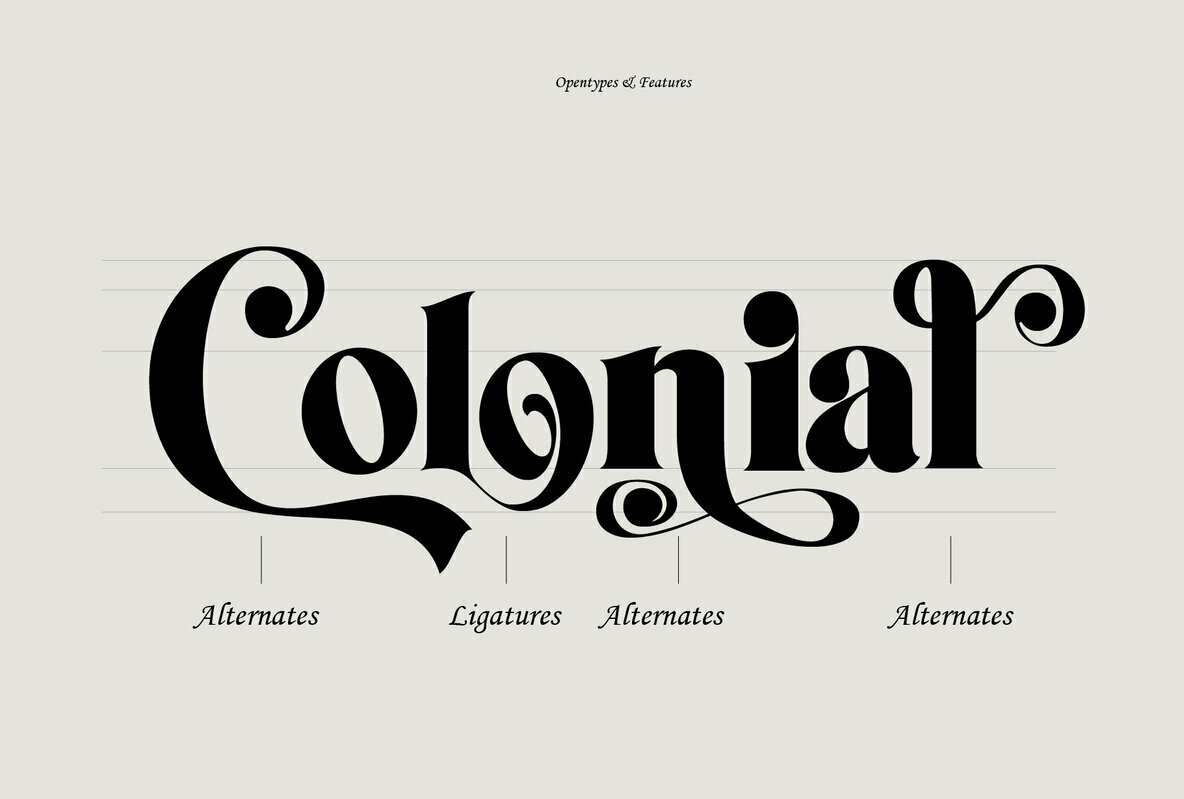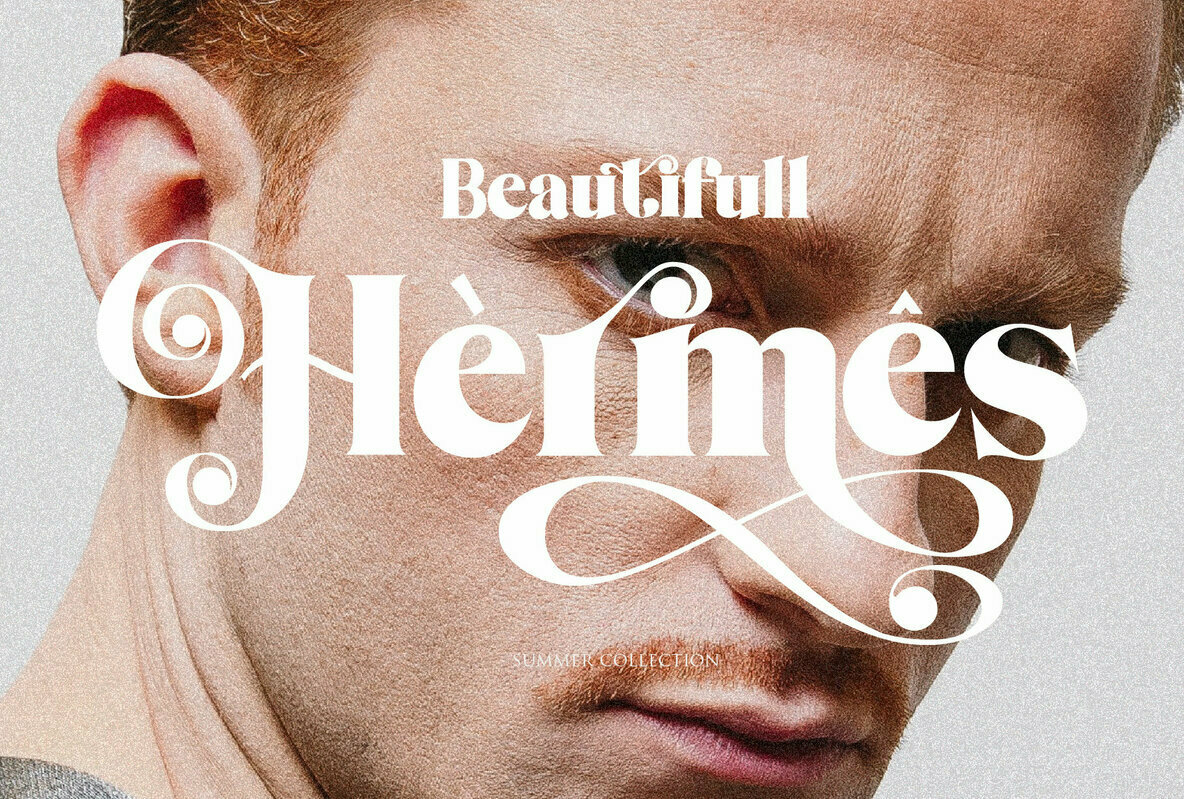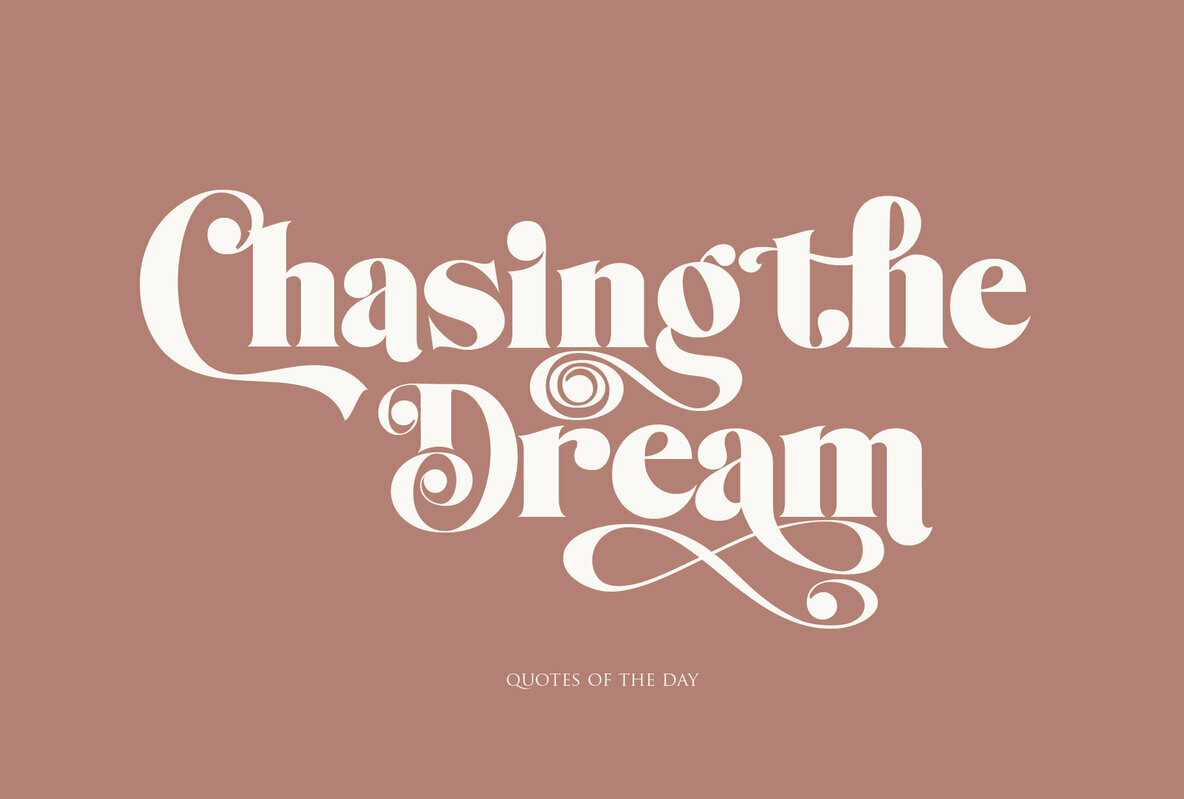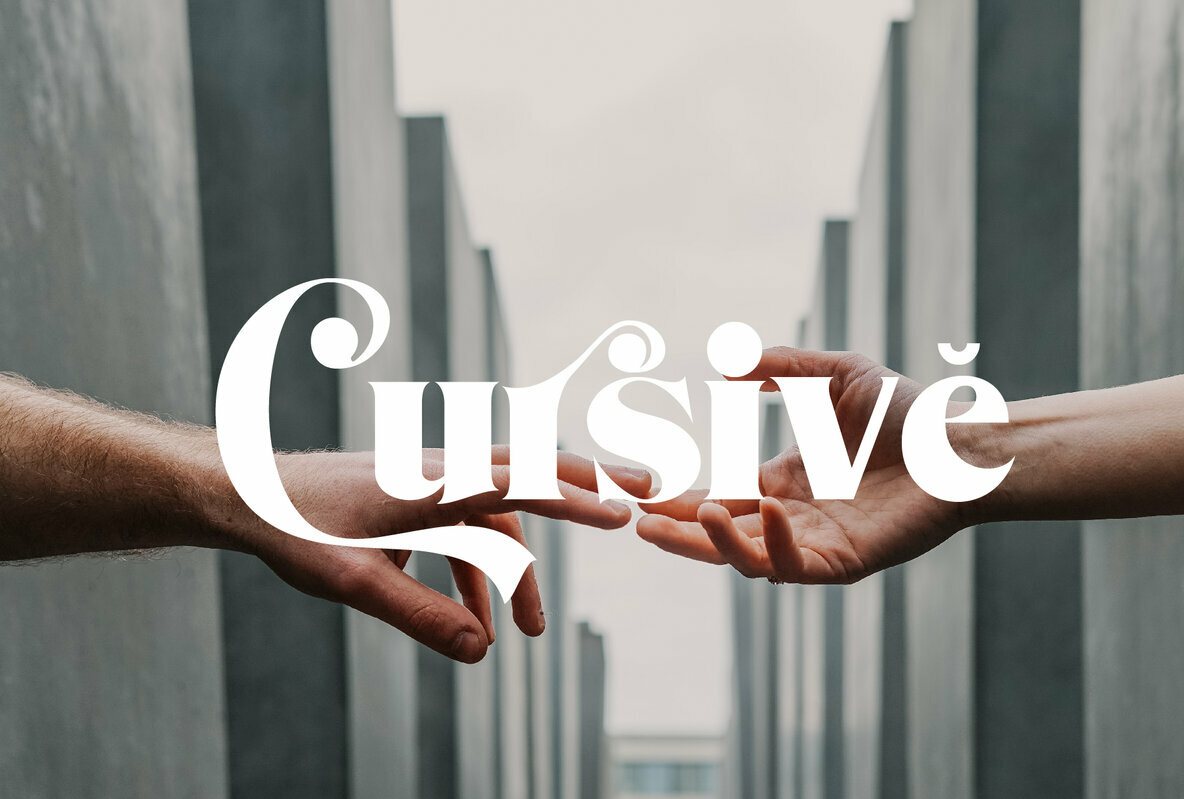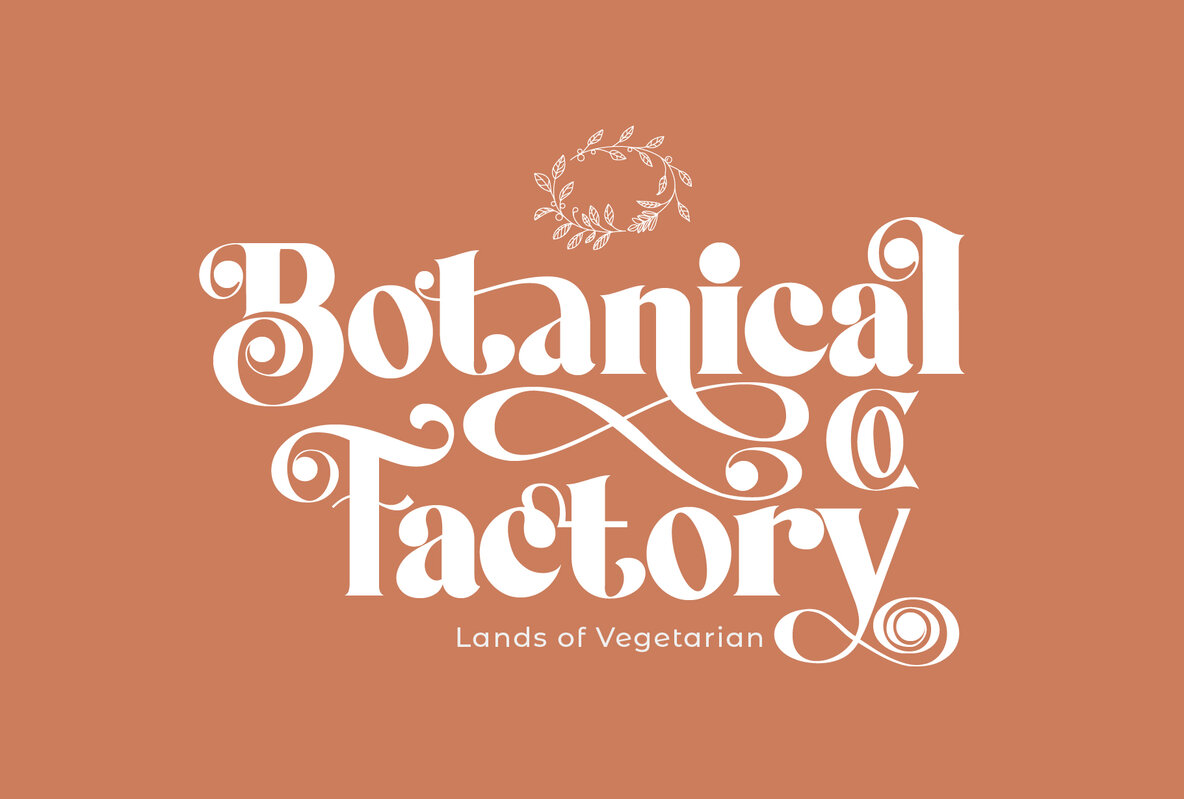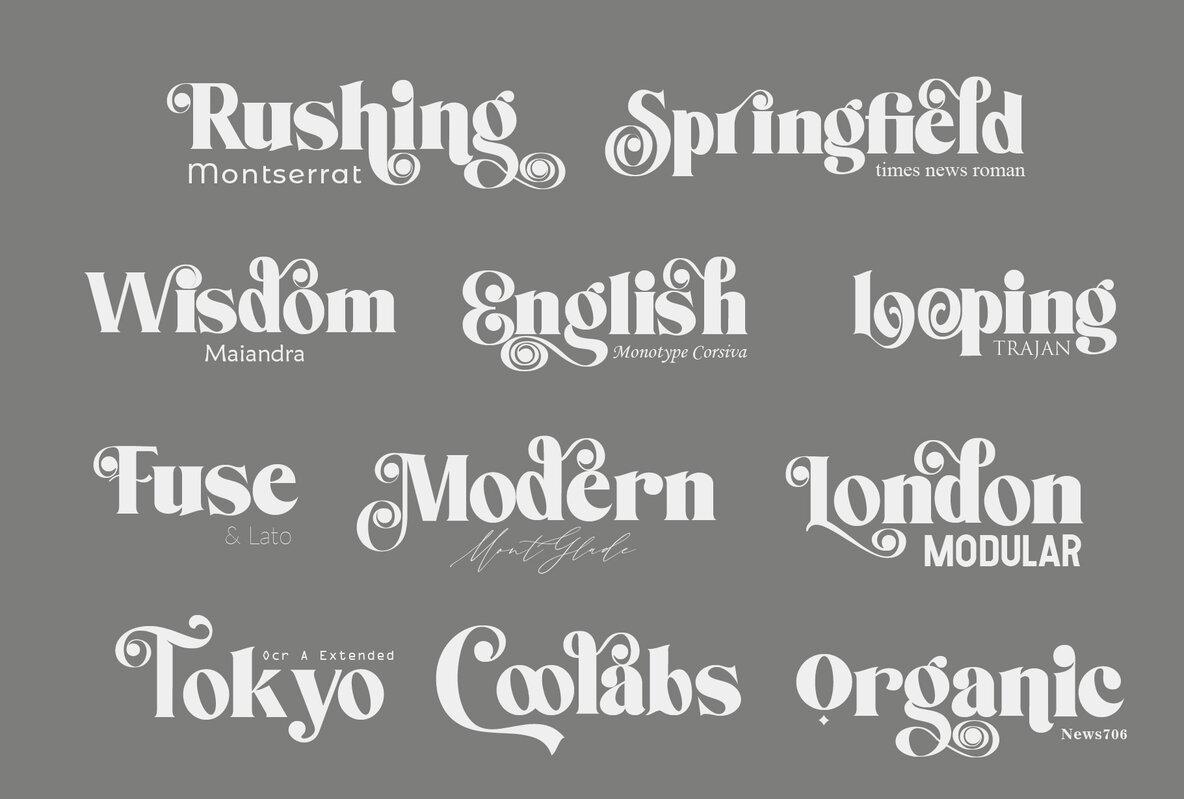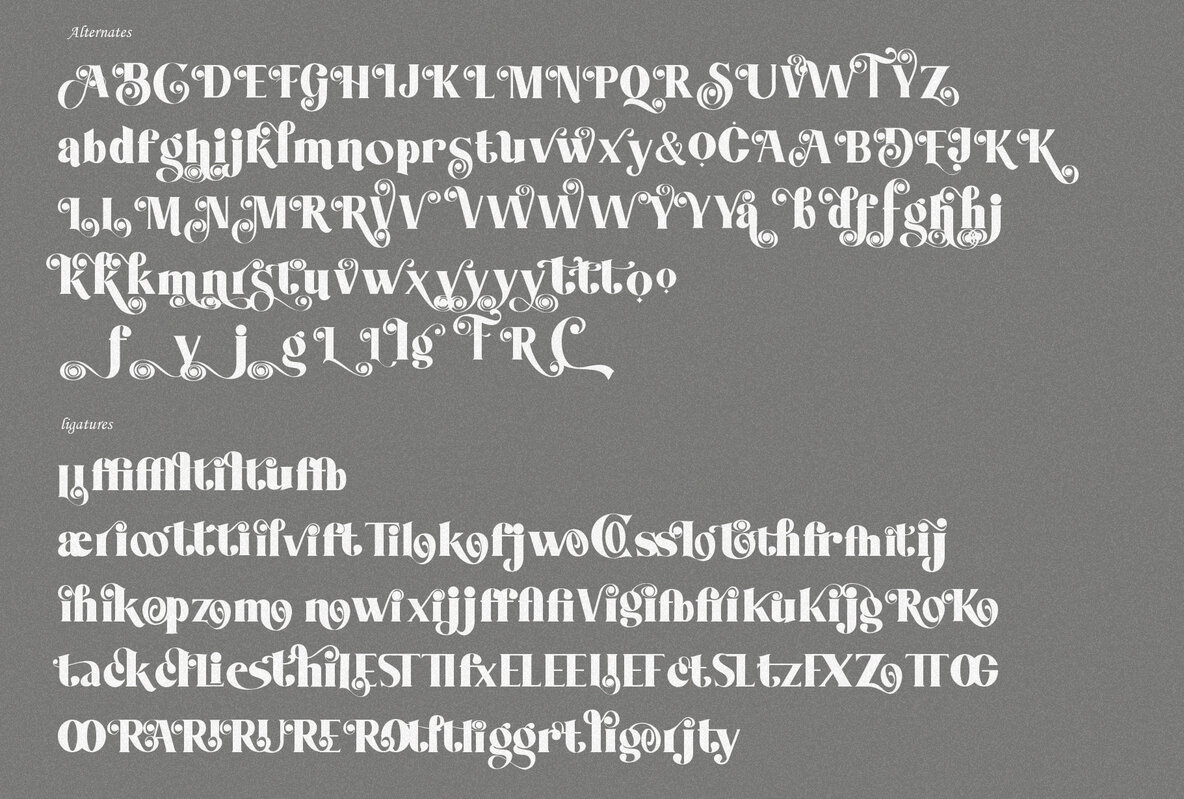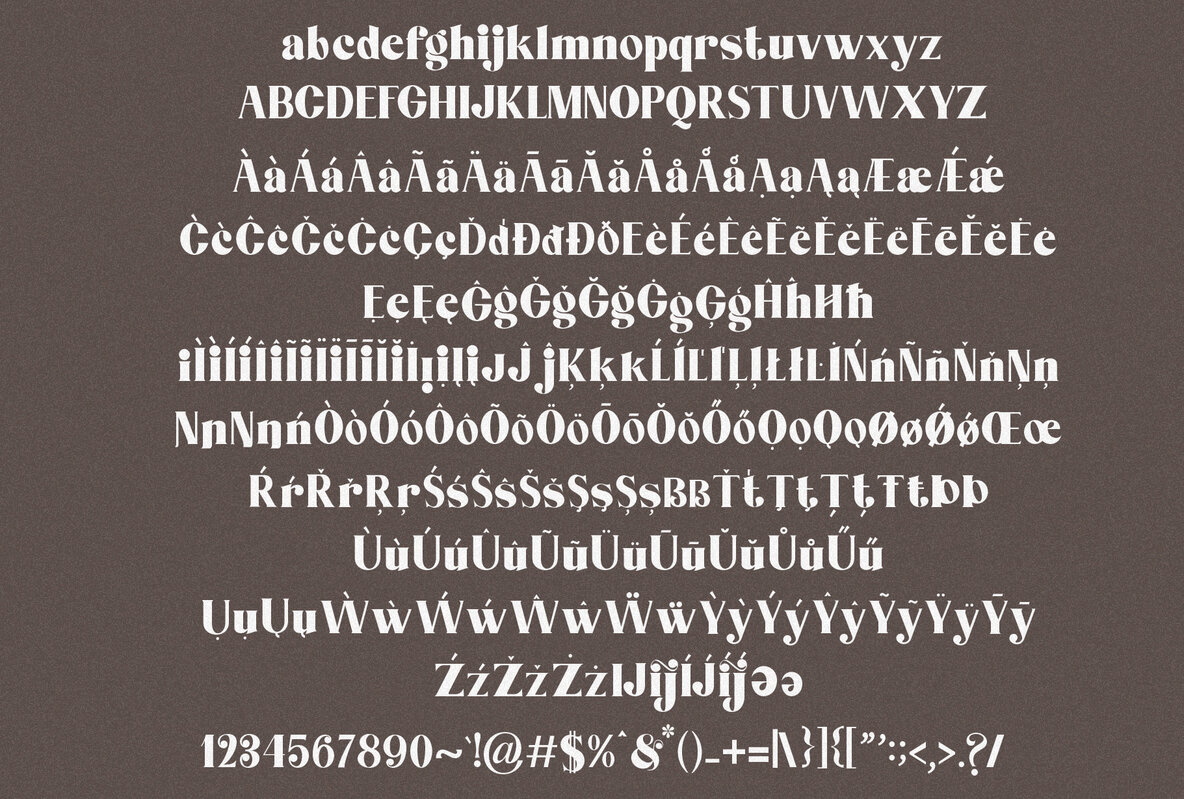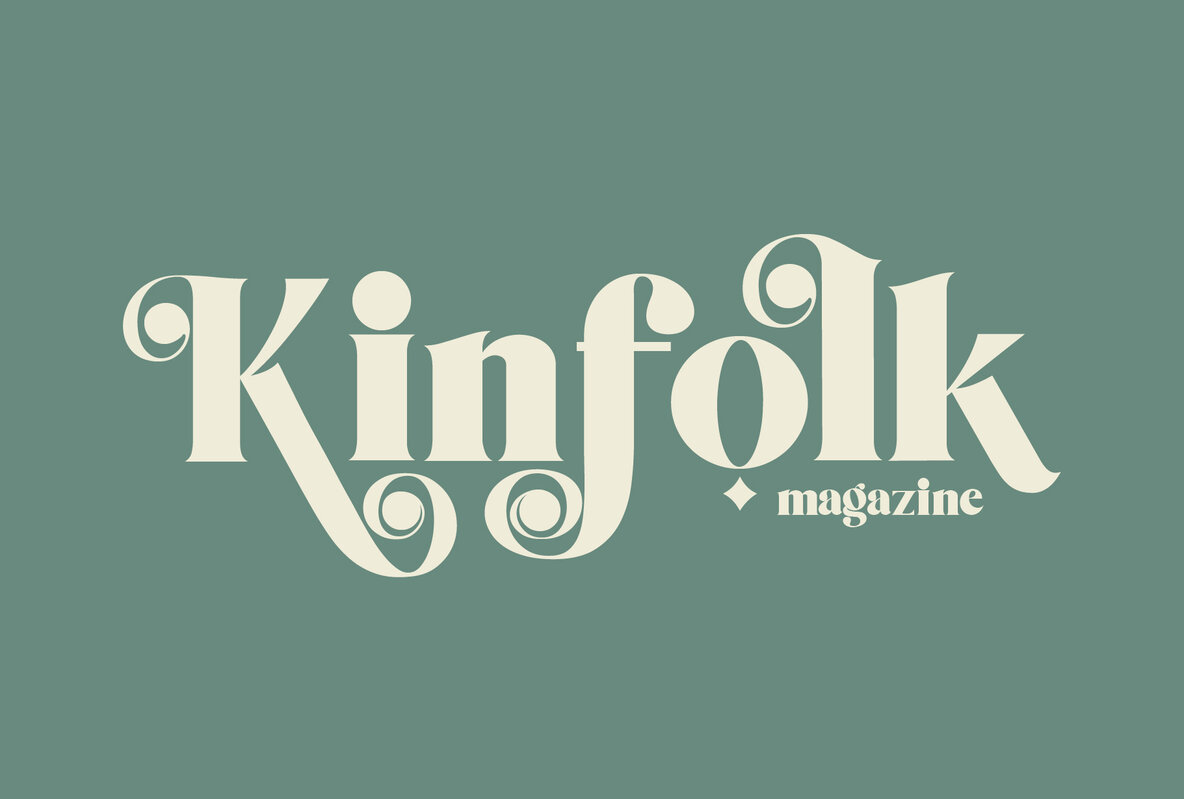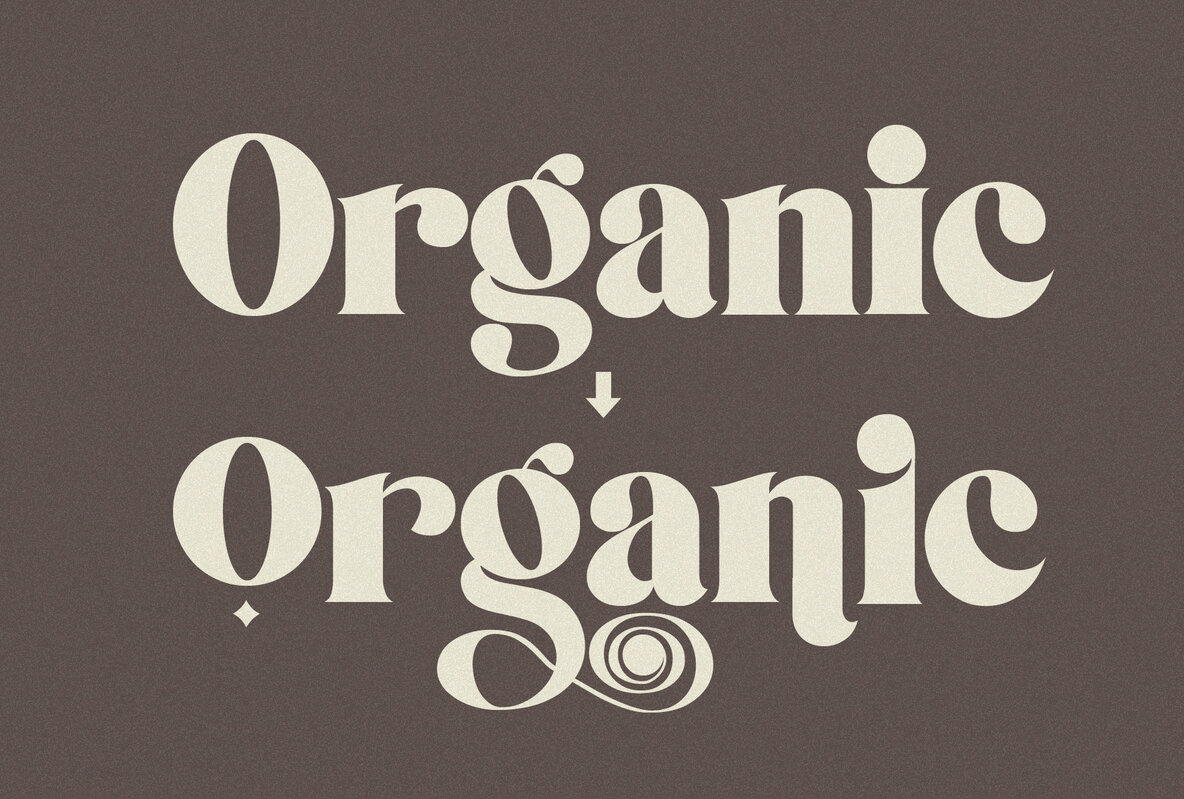
Monolog Typeface Font
For those seeking sophistication and versatility in design, the Monolog Typeface by Ramandhani Nugraha stands as an exemplary choice. Perfect for elegant themes, it seamlessly adapts to applications such as magazine covers, brochures, logos, headlines, and stand-alone displays. Each font within this family is dynamic and authoritative, making it equally suitable for short paragraphs or captivating content displays. As a bonus, the Monolog Typeface includes an organic shape element, allowing designers the flexibility to create both editable objects and outlines. This adds creative depth to any project.Monolog Typeface: Modern Elegance and Authority